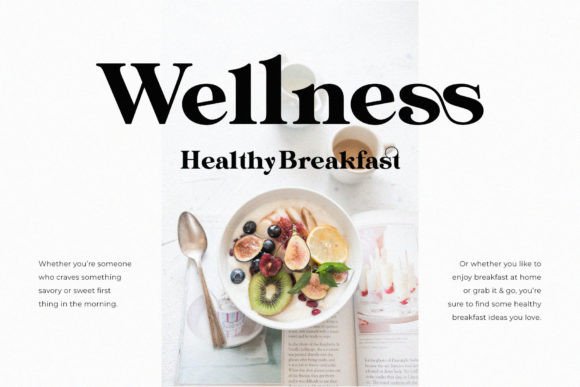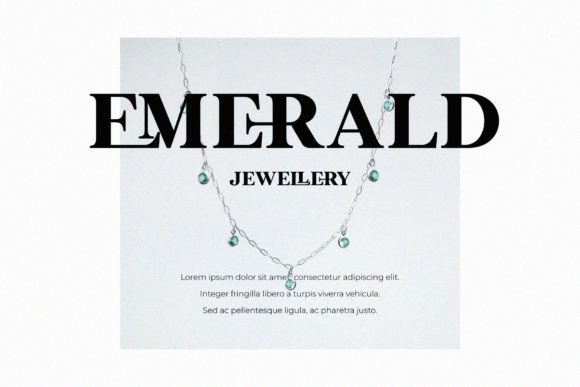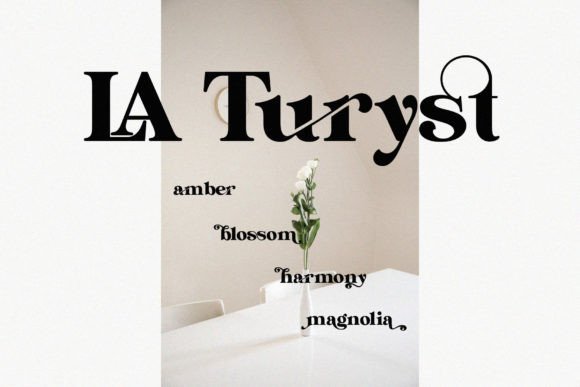
Introduction to Rolland Font
Rolland font exudes modern elegance with its sleek and sophisticated serif design.
Its refined lines and balanced proportions make it an excellent choice for conveying a sense of professionalism and contemporary style Whether used in print or digital projects, Rolland adds a touch of timeless class to any text, making it a versatile and reliable choice for a wide range of applications.
Key Features of Rolland Font
Why Choose Rolland Font?
Rolland Font offers exceptional quality and versatility, making it a valuable addition to your design toolkit. Whether you’re creating for personal projects or commercial use, Rolland Font delivers professional results.